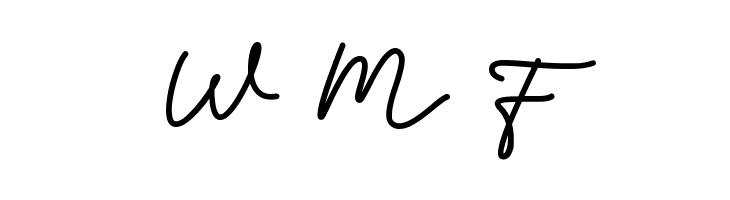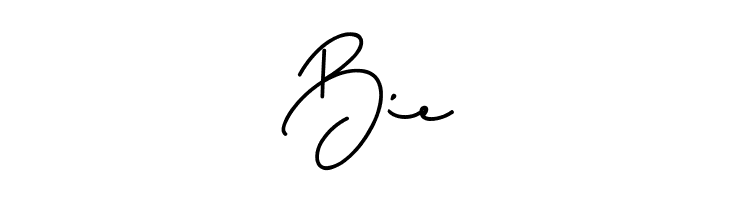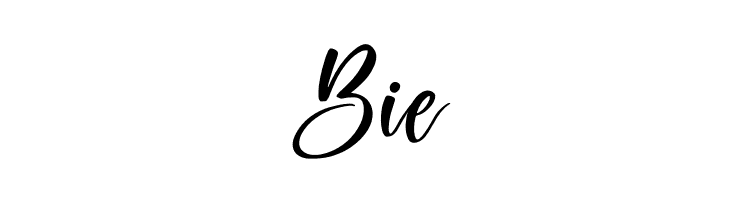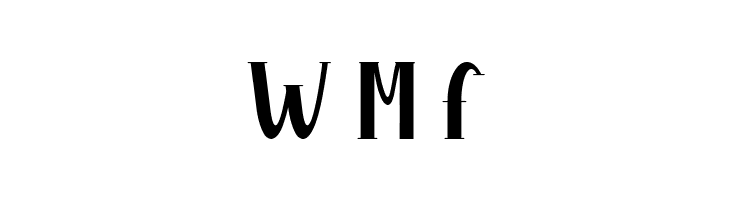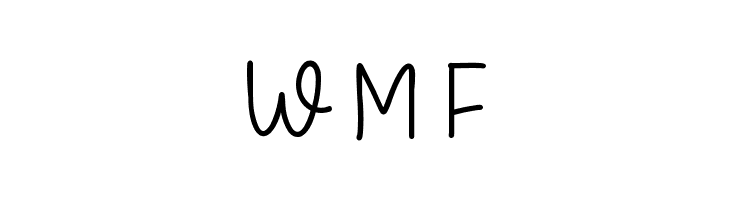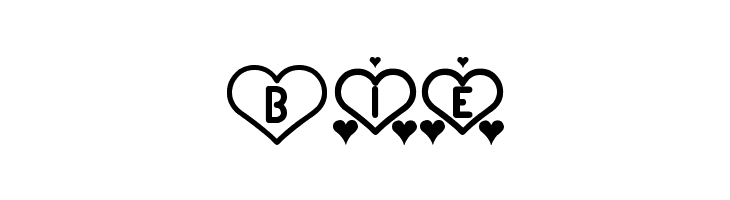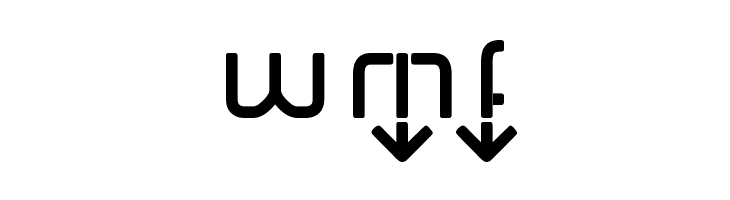
• Bellome
A dynamic and expressive cursive script font with a handwritten appearance.
• Beltane
A bold, distressed font with a vintage, hand-crafted appearance.
• Bendina Sambat
A flowing, cursive font with elegant loops and a handwritten appearance.
• BENDISON
A playful, casual handwritten font with smooth curves and a friendly appearance.
• Benillia
A playful and elegant handwritten script font.
• BerloosComix
A playful, cartoon-inspired font with bold, rounded characters featuring whimsical designs.
• Best Augment Demo
A modern and elegant font with elongated strokes and subtle curves, perfect for artistic projects.
• Best Rock
A dynamic and expressive handwritten font with fluid, continuous strokes.
• Betamorph
• betapoRt
A modern, playful font with integrated arrow elements and rounded bold characters.
• Betazed
A futuristic, geometric font with bold, angular lines and rounded edges.
• Betazed Bold Italic
A bold, italicized font with a futuristic and angular design.
• Betsilicious
A playful, casual handwritten font with irregular strokes and a whimsical feel.
• between my ears
• Beyond
A bold, futuristic font with diagonal line patterns and geometric shapes.
• Bijack
A playful and bold font with whimsical, heart-accented characters.
• Billy Signature Italic
A cursive, handwritten-style font with elegant, flowing strokes.
• Biology
A bold, organic font with intricate, nature-inspired patterns.
• Birawa
A fluid, cursive font with a natural handwriting style.
• Birdland Aeroplane
• Birdside
An elegant, flowing script font with a handwritten style.
• Birmingham Signature
A sophisticated script font with elegant, flowing strokes and a personal touch.